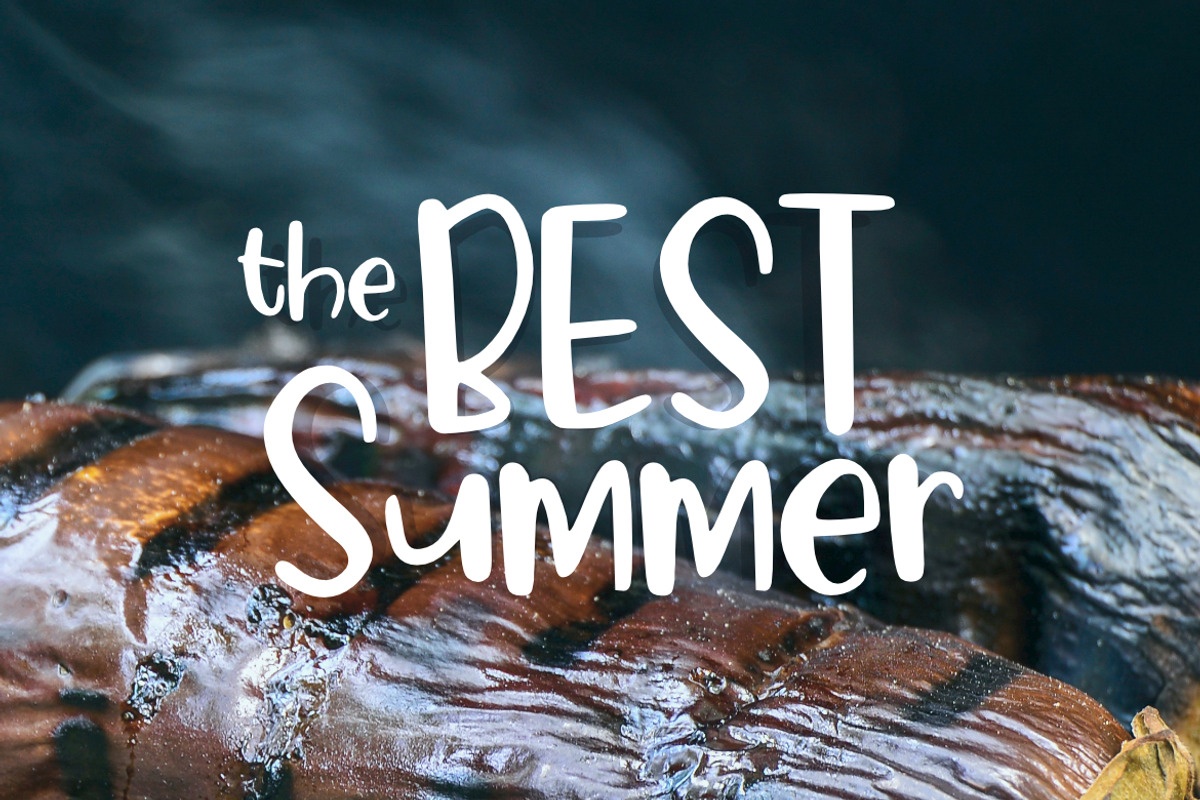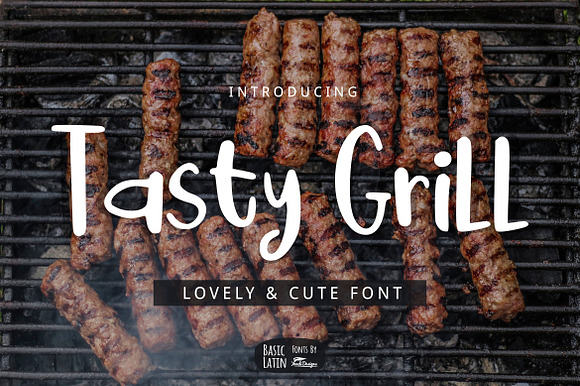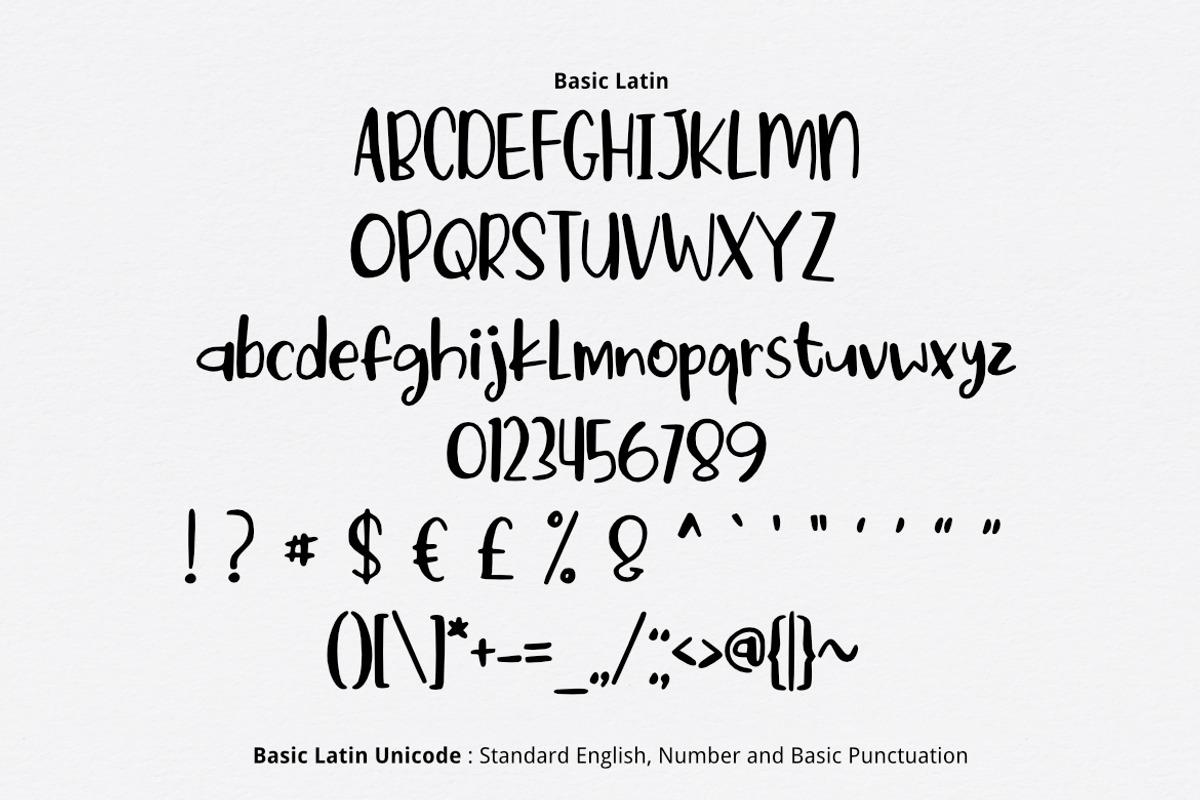
Tasty Grill Font
Tasty Grill is lovely , cute, simple, playful, multipurpose handwritten font , suitable for many project children book, quotes, logo , heading , title etc. Summer & Holiday Font.
Tasty Grill Font by YandiDesigns fits naturally into Branding, posters, packaging, typography.